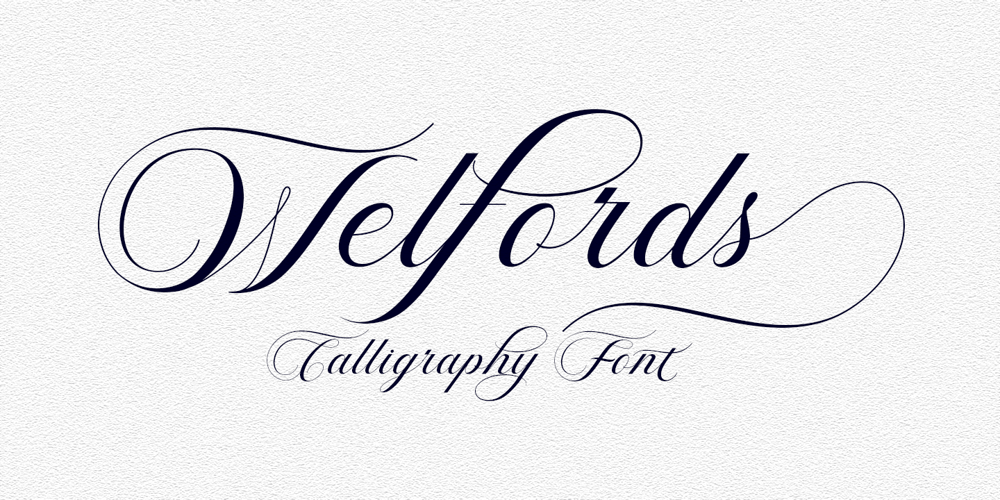
Welfords
Welfords font
Welfords Font Family was designed by Ayi Teiry and published by eyetype. Welfords contains 1 styles and family package options. Welfords is another lovely modern calligraphy typefaces, which is combining the style of classic calligraphy with an modern style. combines from copperplate to contemporary typeface with a dancing baseline, modern and elegant touch. Welfords features 500 glyphs and alternate characters Include .The Features of this fonts is; Standart ligatures Swash Alternates Stylistic sets PUA Unicode (Private Use Areas) Programs that support in this font is a Adobe Photo Shop, Adobe Illustrator, Adobe Indesign, Corel Draw and Microsoft Office.